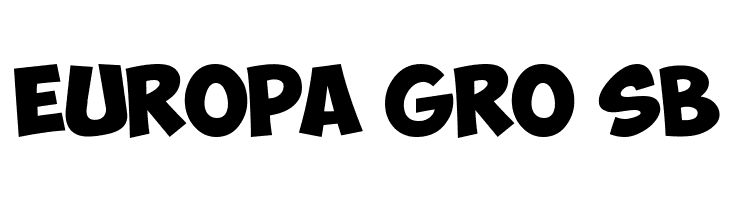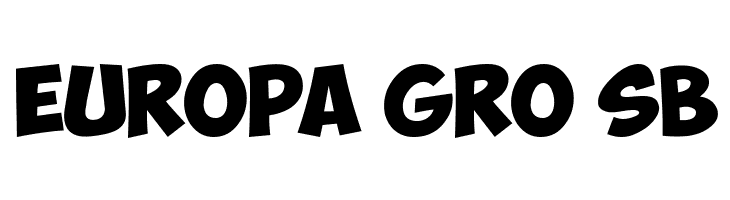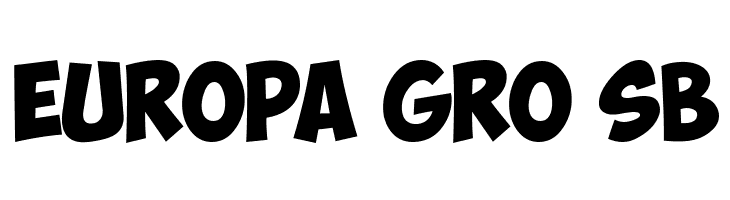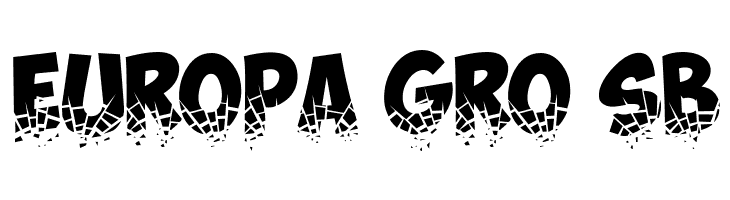
ObelixPro Font
A bold, playful font with exaggerated curves and a lively appearance.
ObelixPro Bold Font
A bold, playful font with exaggerated curves and thick strokes.
ObelixPro Bold Italic Font
A bold, playful, and italic font with rounded characters.
ObelixPro Italic Font
A bold, playful font with a dynamic, slanted style.
Obelix Pro Broken Font
A bold, playful font with a shattered effect for dynamic visual impact.
Obelix Pro Cry Font
A bold, playful font with exaggerated strokes and a cartoonish style.